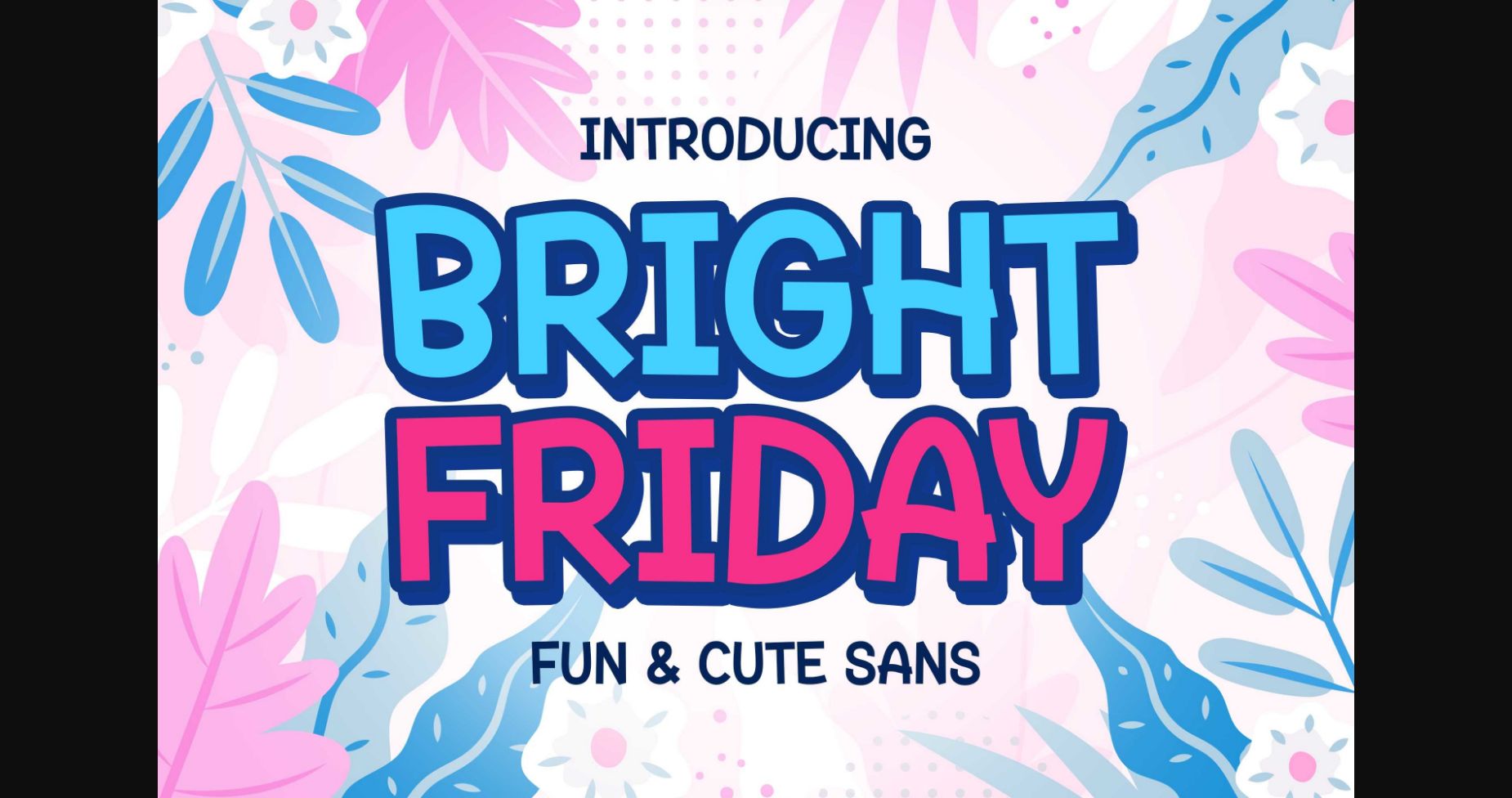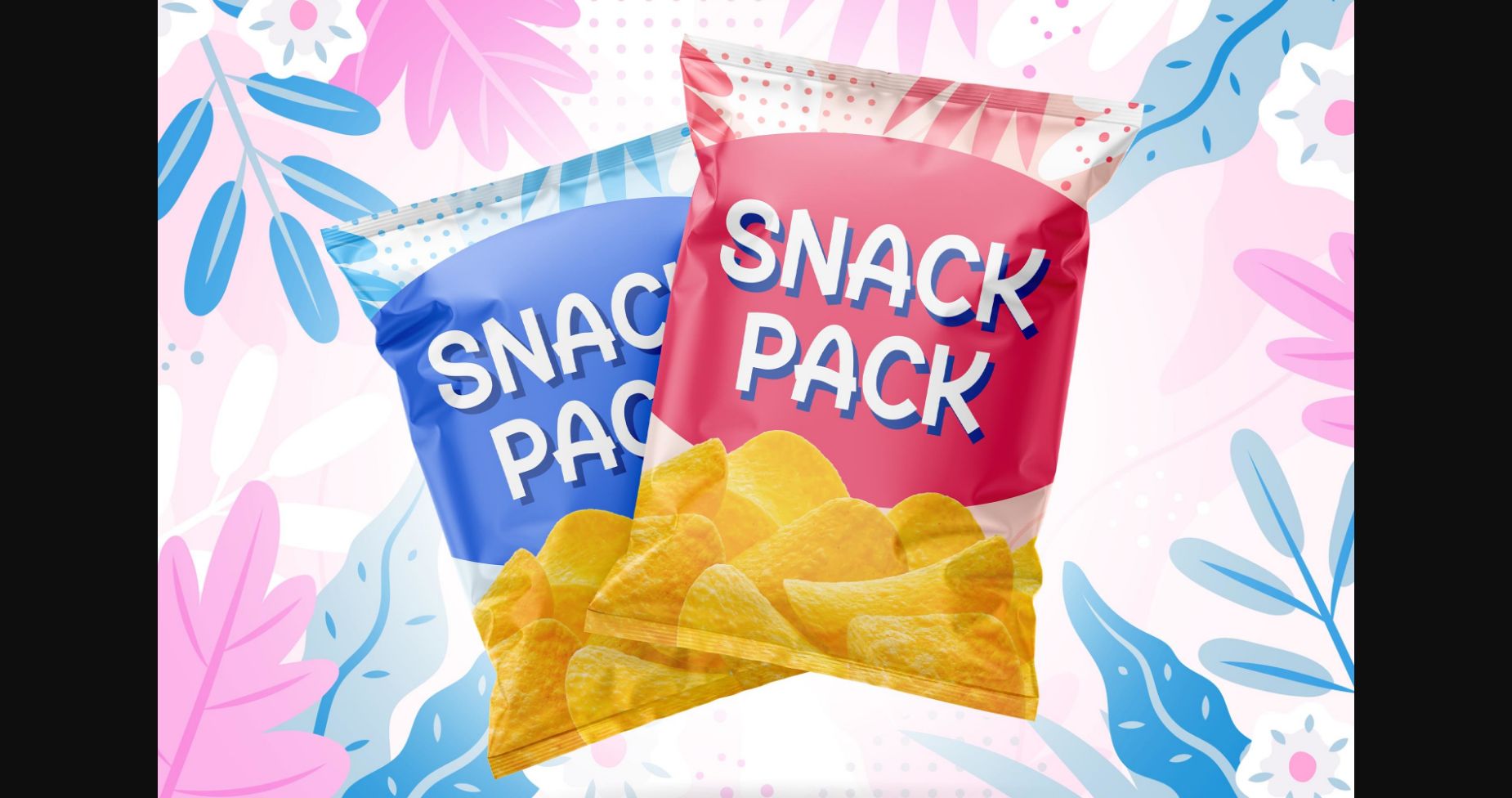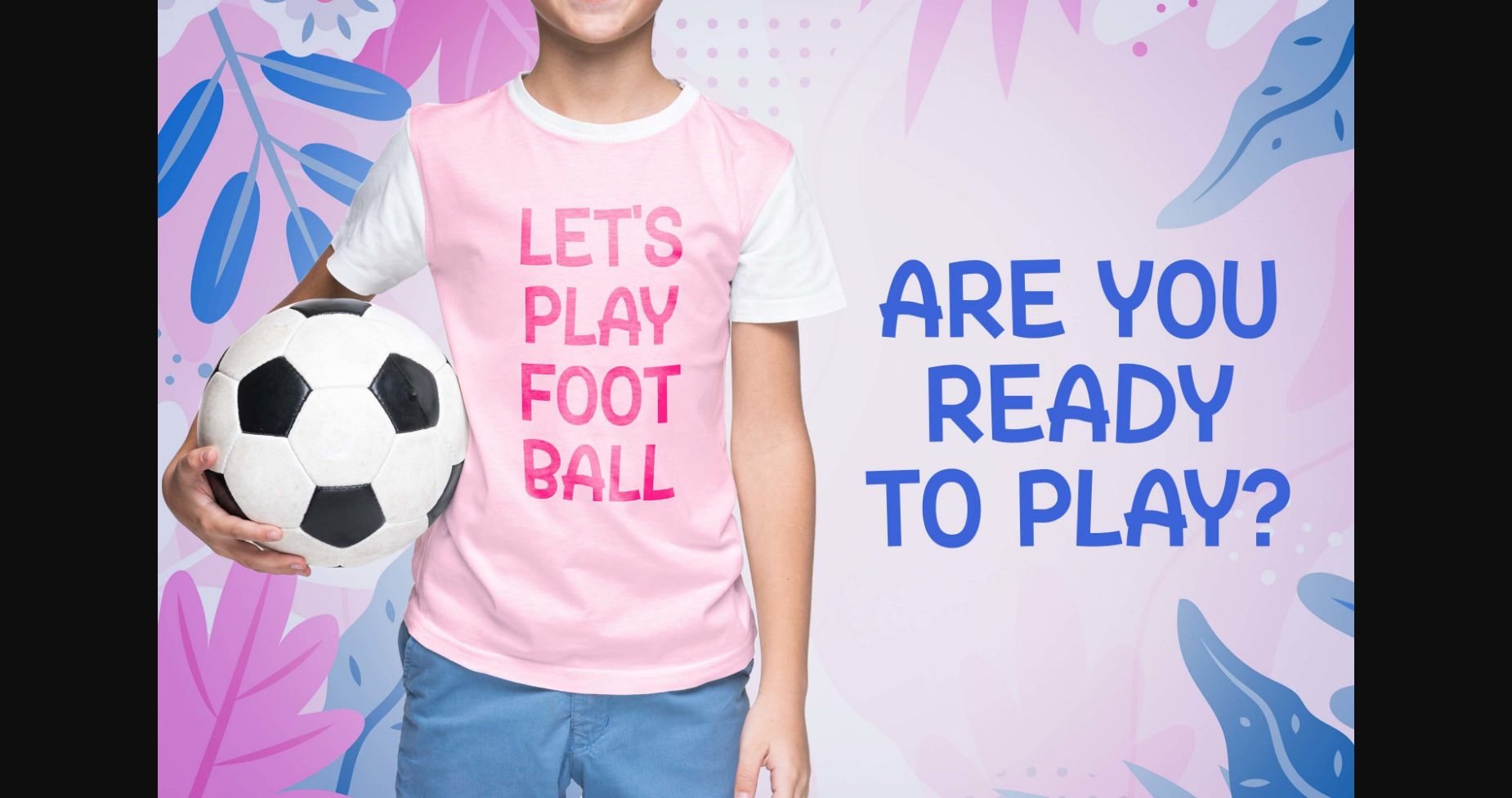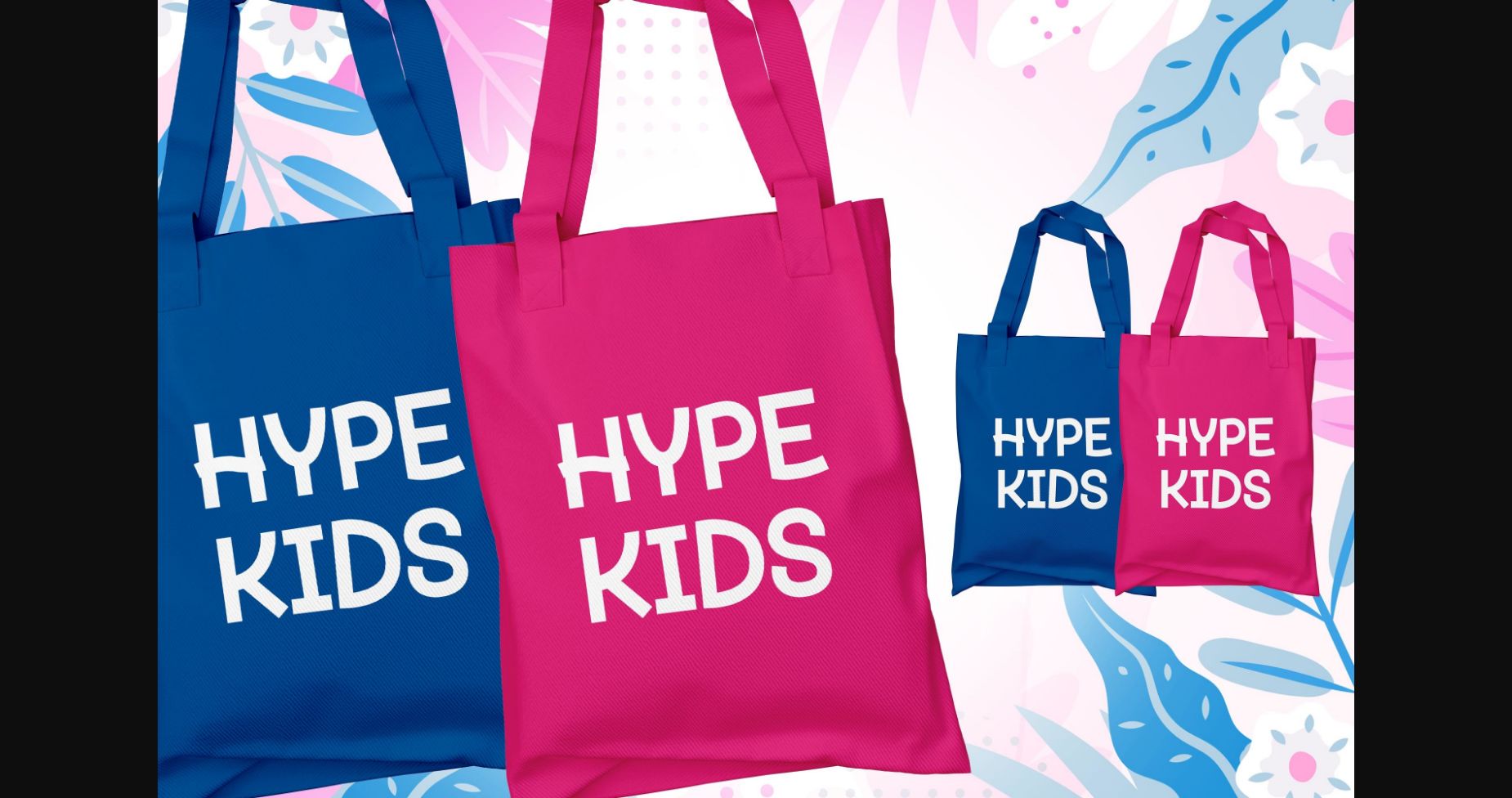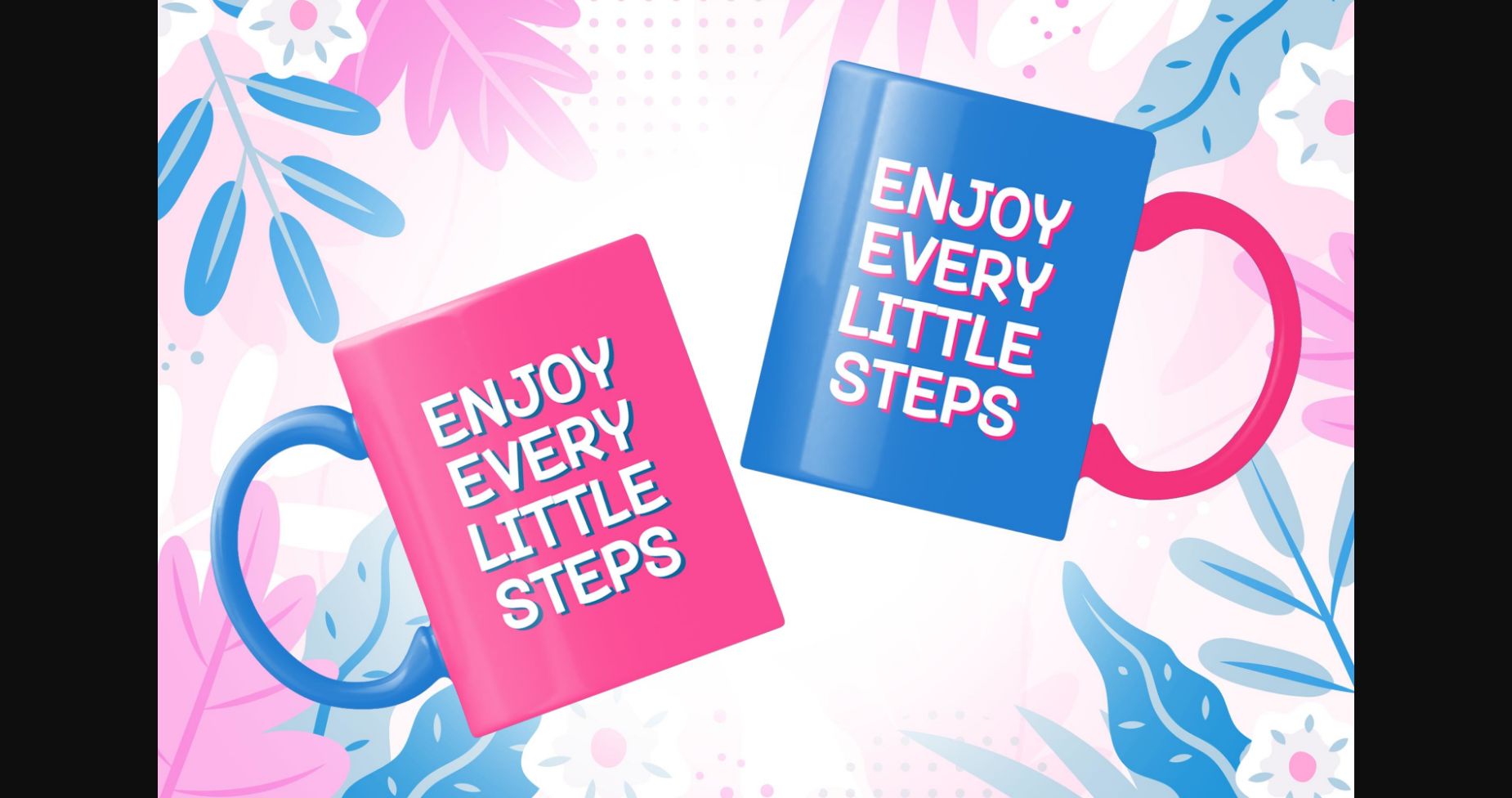
About Bright Friday Font
Bright Friday is a fun and unique sans-serif font that adds a playful touch to any project. With its bubbly curves and friendly demeanor, each letter is bursting with personality and charm. Use Bright Friday to inject a sense of lightheartedness into your designs and make them stand out with its distinct style.